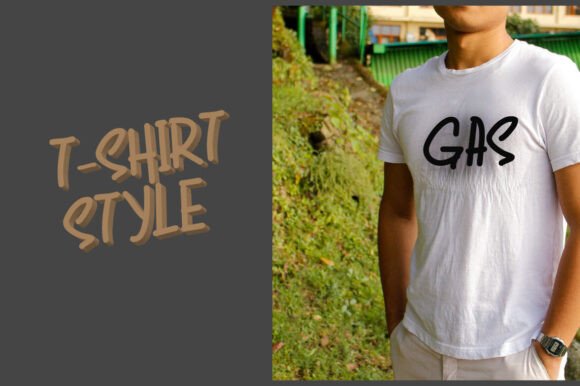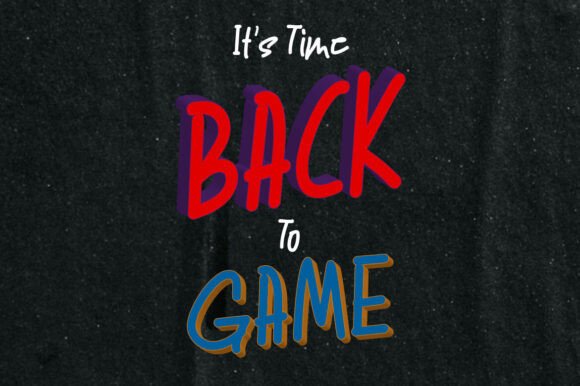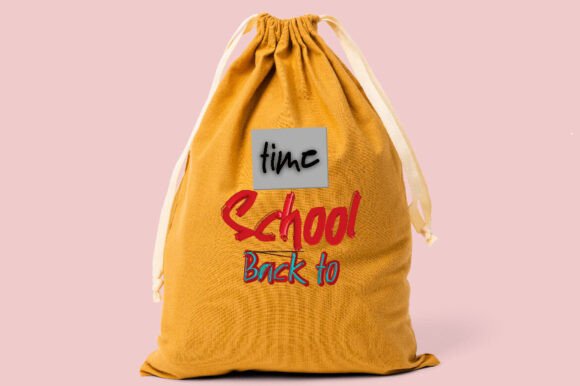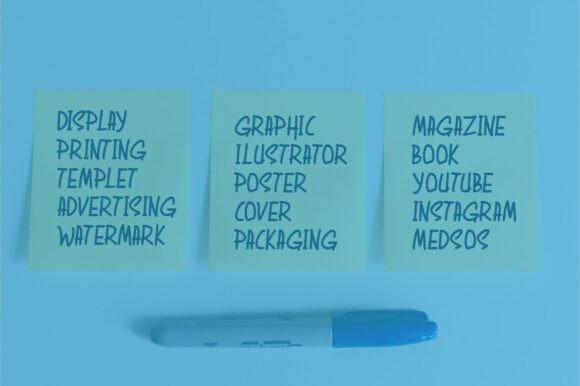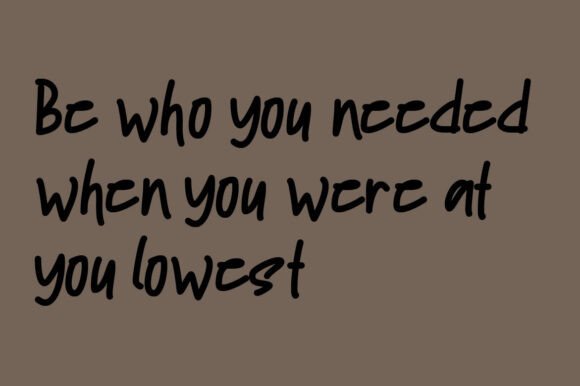
Introduction to Menanti Font
Introducing Menanti, is an incredibly cool and unique handwritten font.
It has a modern yet whimsical style and it will undoubtedly immerse your designs into a magical world .
Key Features of Menanti Font
Why Choose Menanti Font?
Menanti Font offers exceptional quality and versatility, making it a valuable addition to your design toolkit. Whether you’re creating for personal projects or commercial use, Menanti Font delivers professional results.